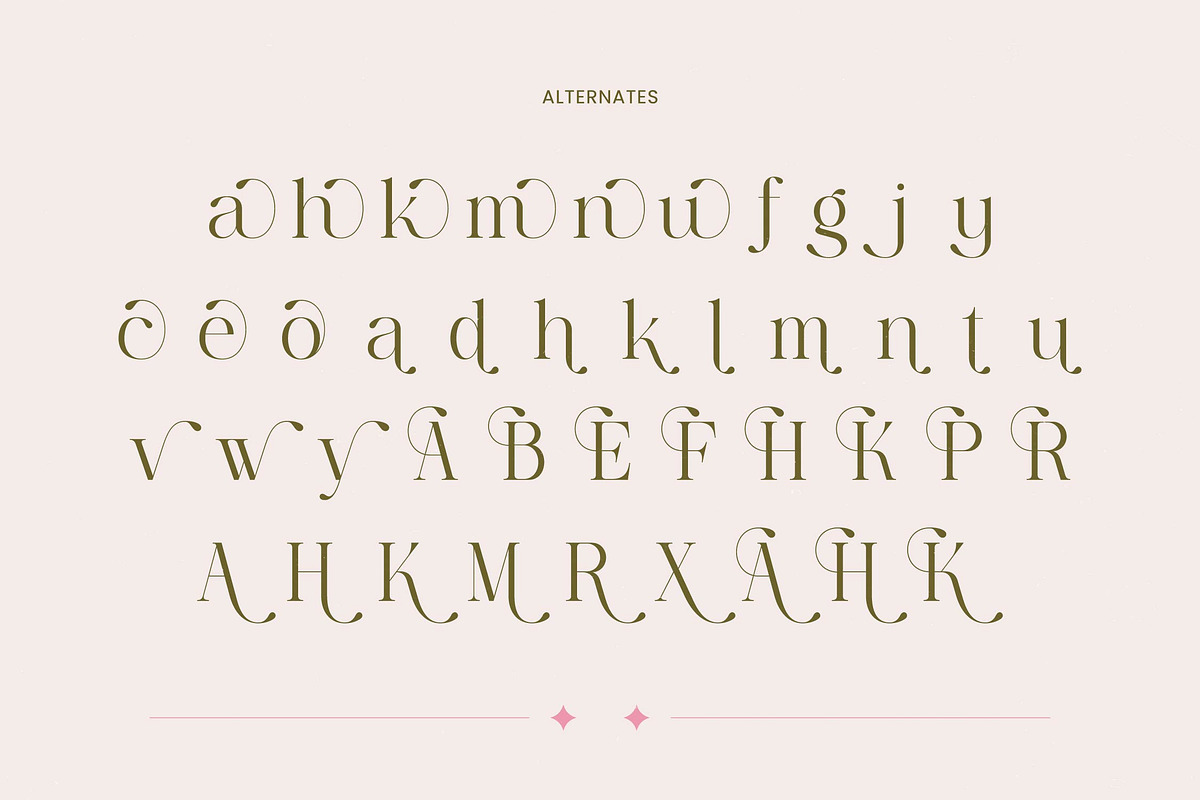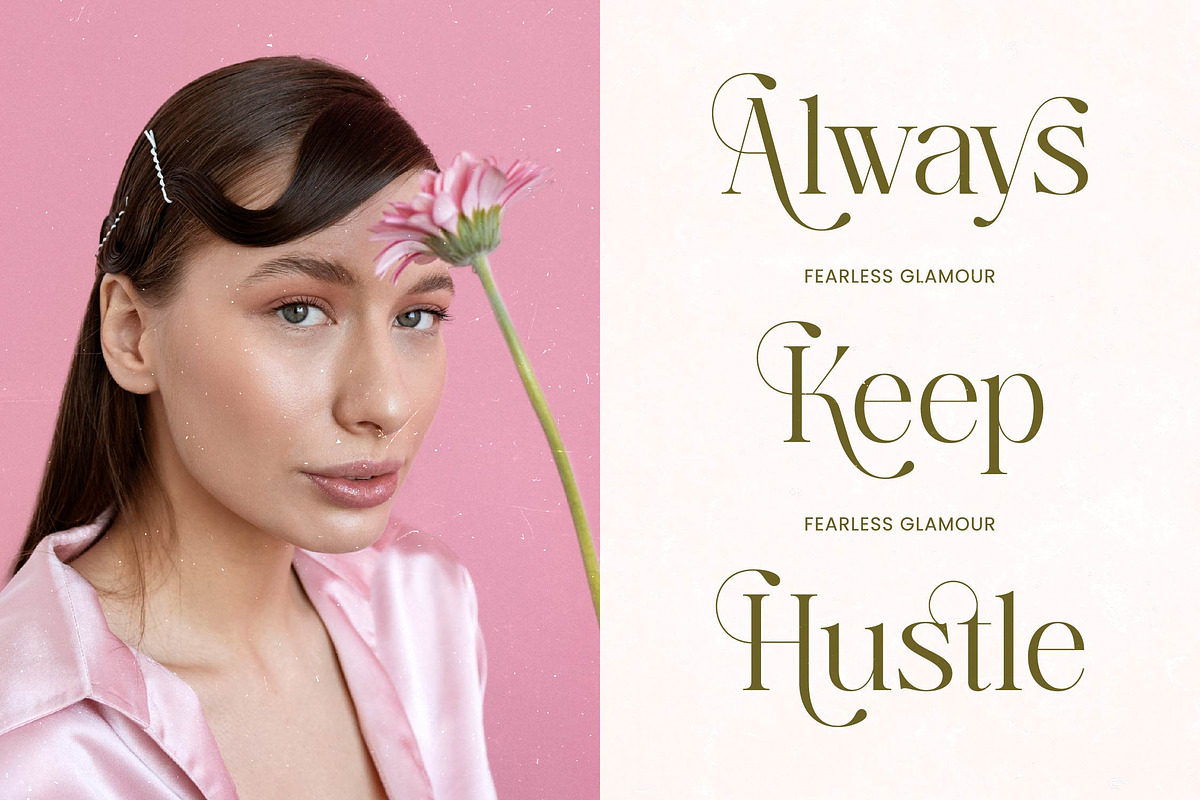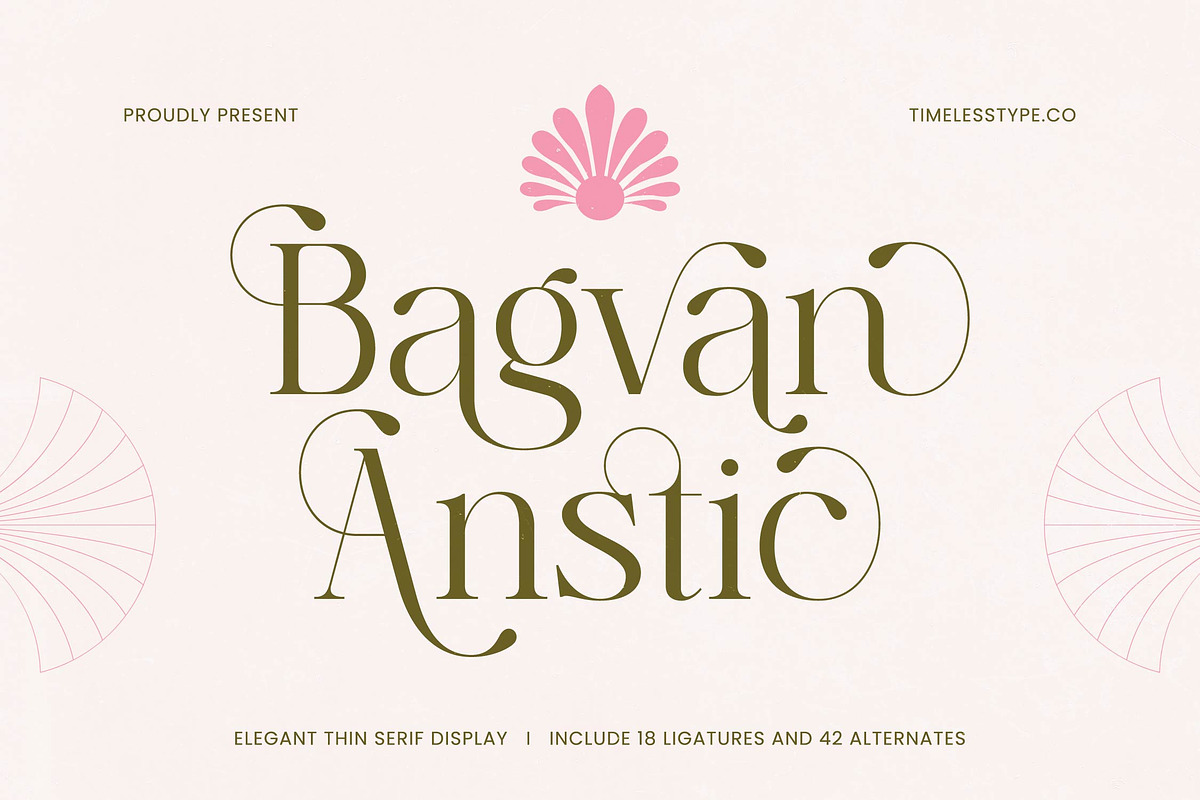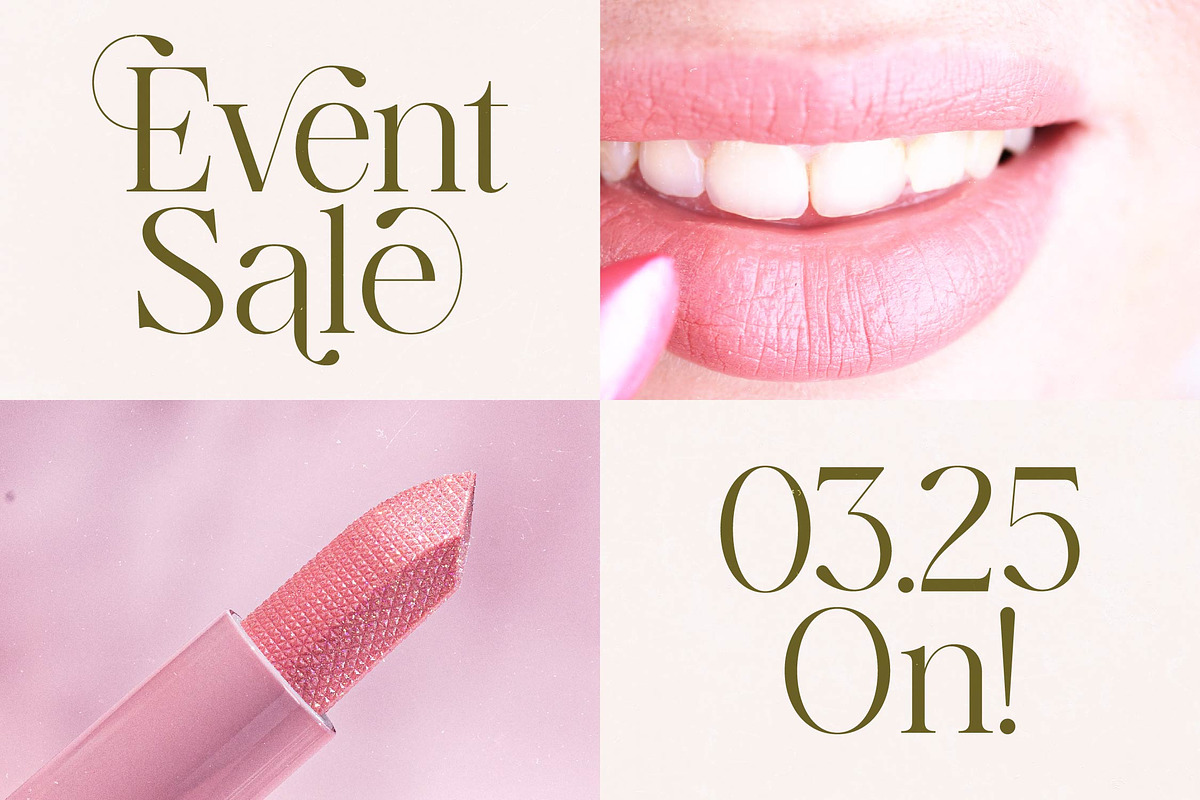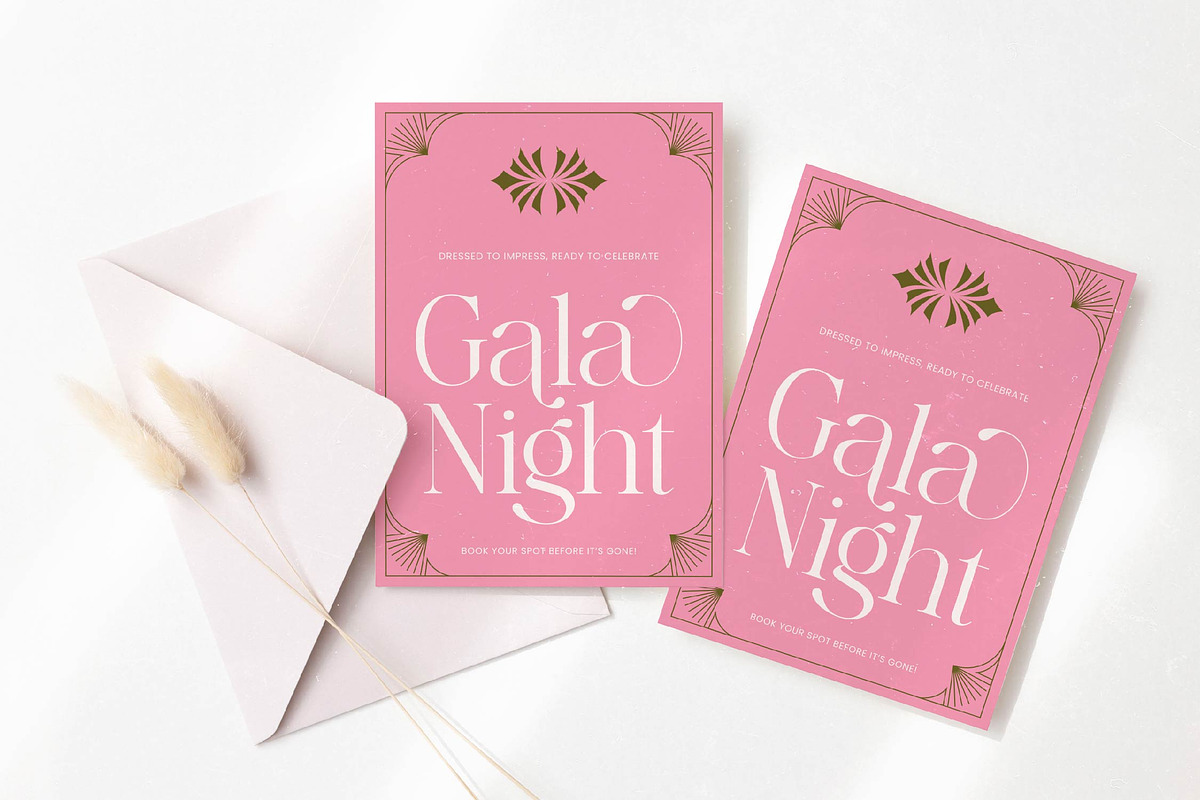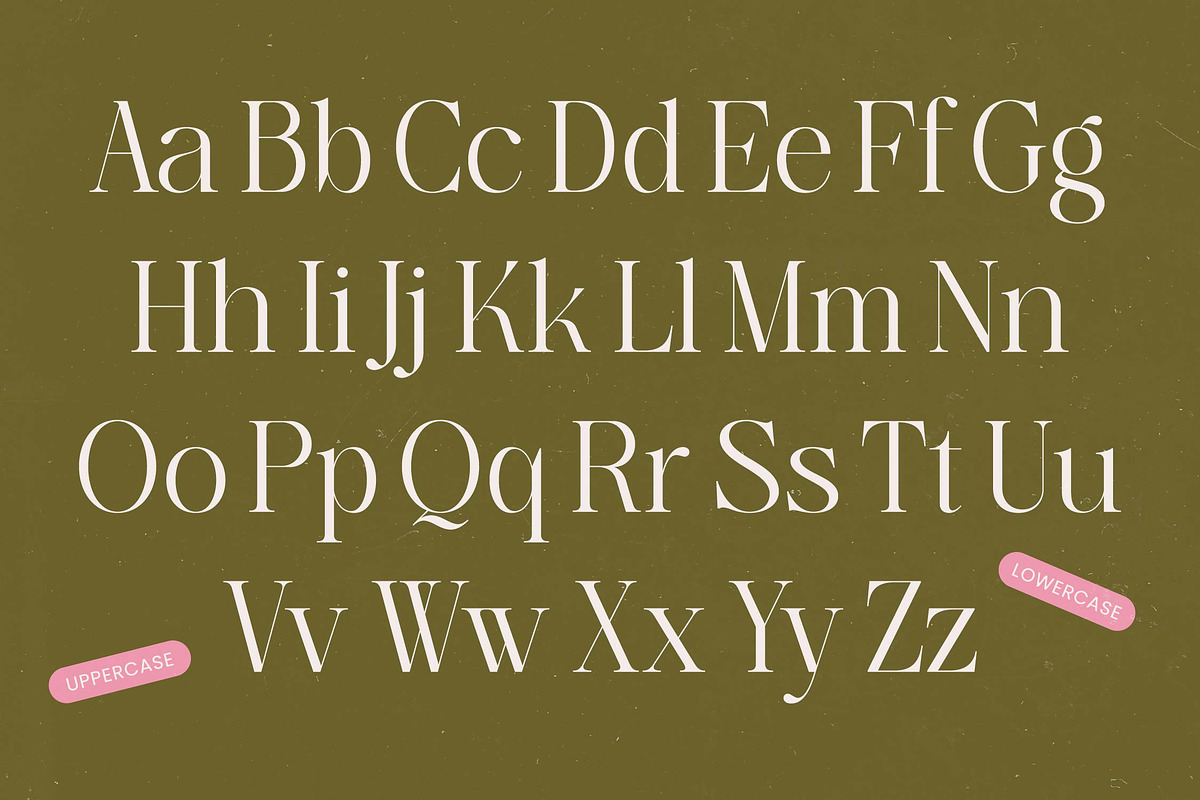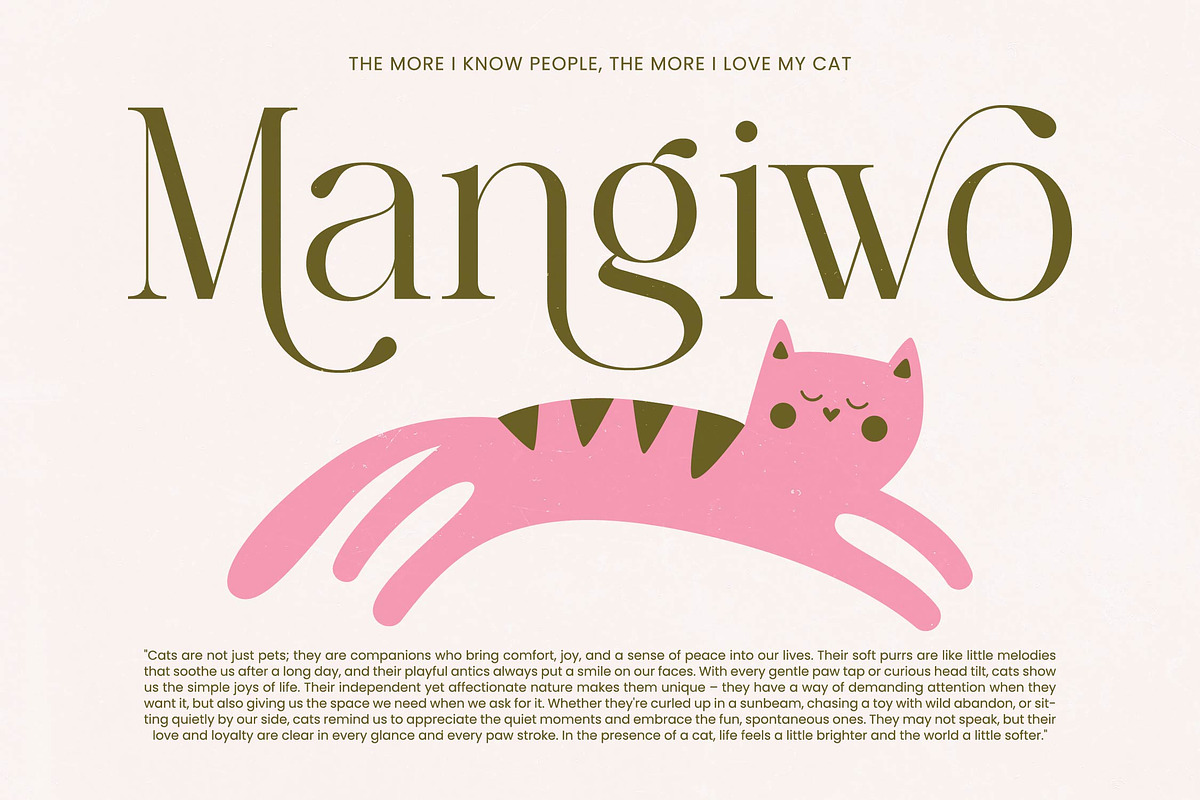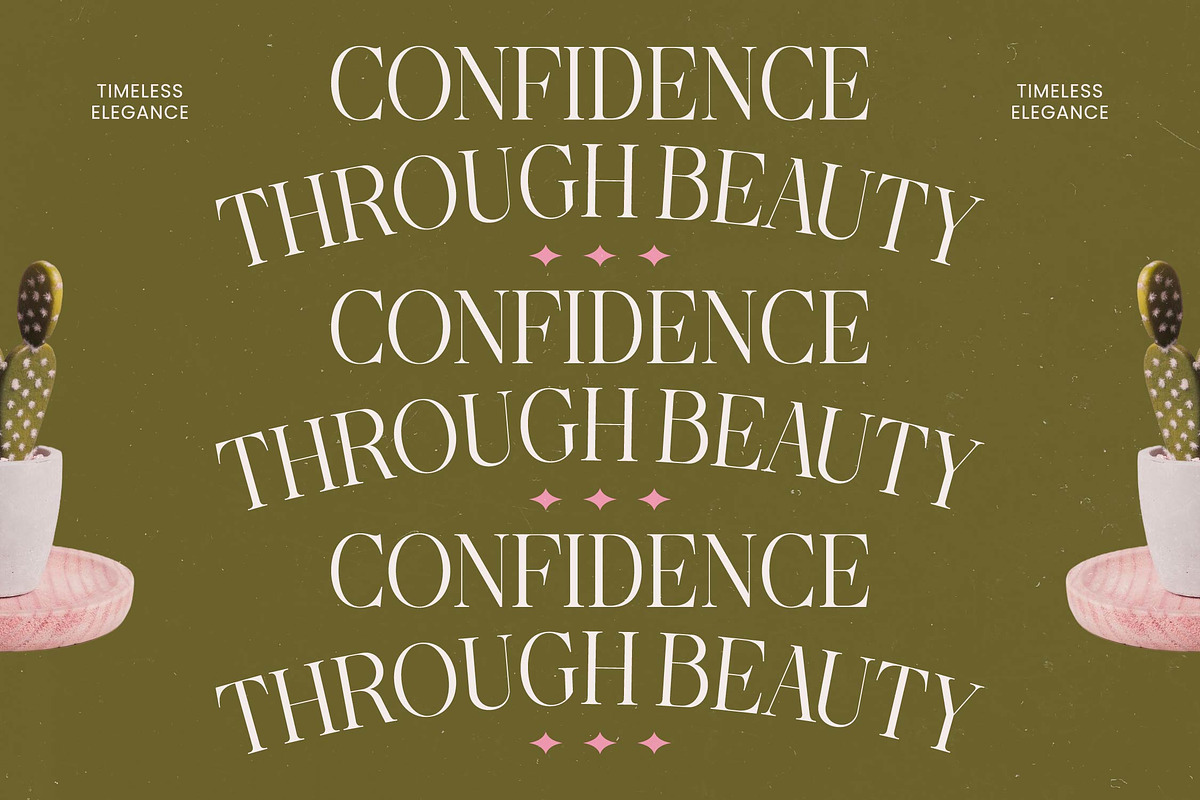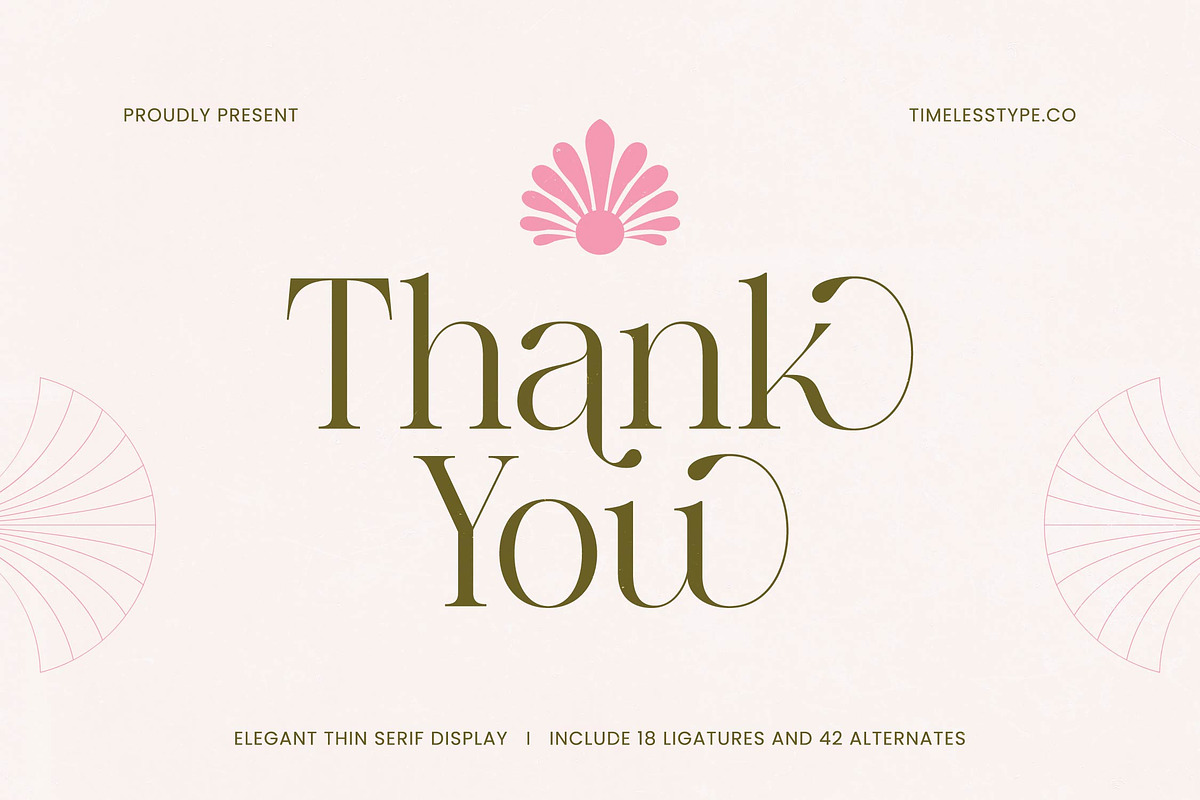
Bagvan Anstic Elegant Serif Font
Bagvan Anstic - Eleghant Thin Serif , Elevate your creative vision with the ethereal beauty of Bagvan Anstic, a typeface designed to dance across the page with unparalleled grace. This font is a masterpiece of delicate lines and sweeping curves, perfect for those seeking to leave a lasting impression of pure sophistication.
Inspired by the delicate interplay of light and shadow in high-fashion photography and the intricate scrollwork of Art Nouveau, this typeface captures a timeless aesthetic. It breathes life into the blank canvas, drawing from a world where every stroke tells a story of refined elegance and artistic heritage.
This modern serif display is more than just a typeface; it is a statement of luxury typography that demands attention without raising its voice. With its high-contrast serif design, it serves as the ultimate editorial font for creators who prioritize branding impact and visual storytelling in every project.
Aligning perfectly with the current modern serif trend, this typeface fulfills the growing demand for editorial display fonts that offer a unique, bespoke feel. It embraces the shift towards character-driven typography, allowing brands to distinguish themselves in a crowded digital landscape through authentic and expressive letterforms.
From high-end logo design to cohesive visual branding, this versatile tool excels across various creative disciplines including editorial layouts and luxury packaging. It is the ideal choice for wedding stationery that whispers romance or fashion lookbooks that require a touch of avant-garde flair.
The expansive set includes a rich variety of ligatures and alternates that allow for endless customization and unique character pairings. Each glyph is meticulously crafted, featuring graceful swashes and full multilingual support with extensive international characters to ensure your message translates beautifully across global markets.
Numerals
Punctuations (OpenType Standard)
Accents (Multilingual Characters)
Ligatures and Alternative Style Stylistic Set